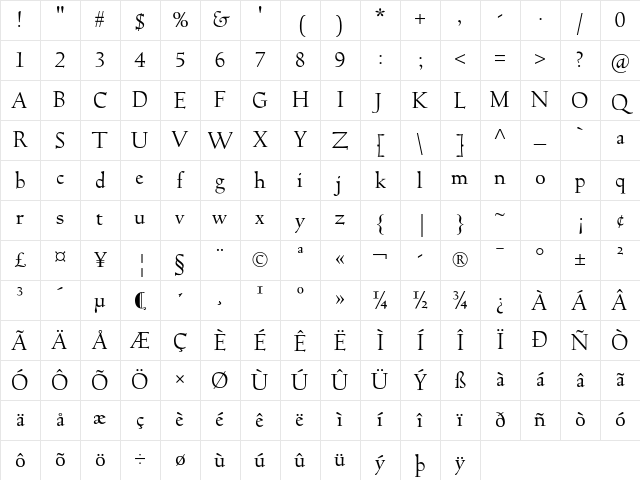
Truesdell Std Regular
Design Context for Truesdell Std
Truesdell Std is a composed and adaptable typeface that performs quietly and consistently across a wide range of design contexts.